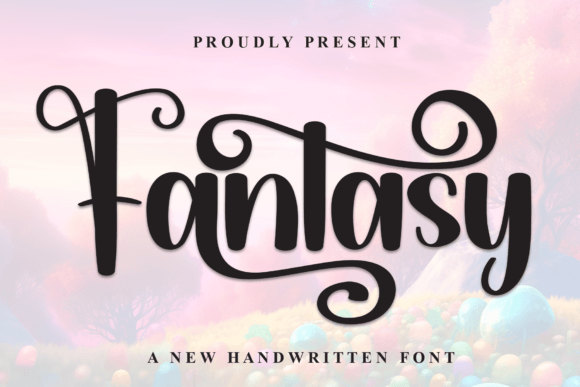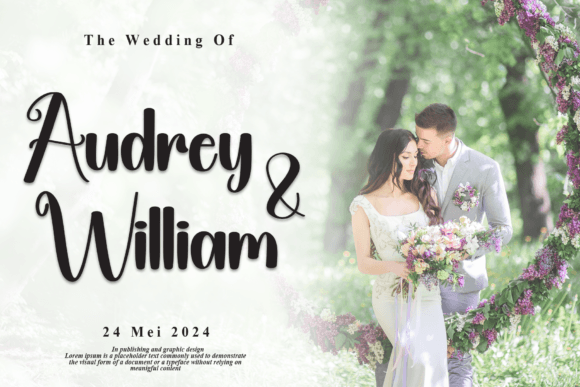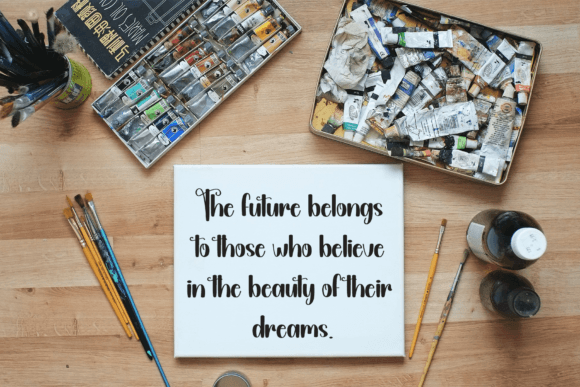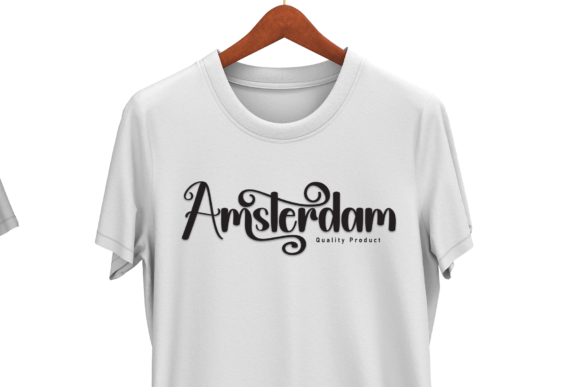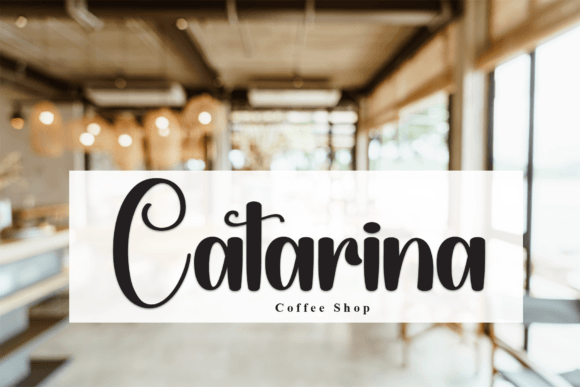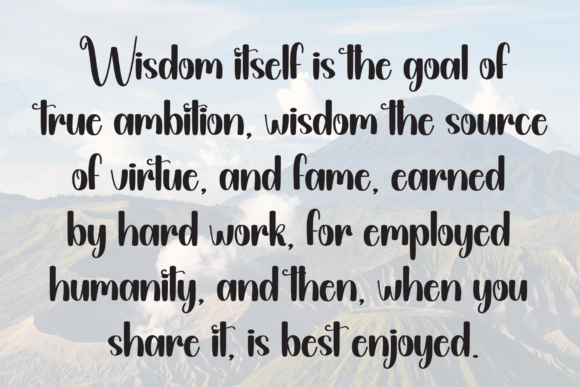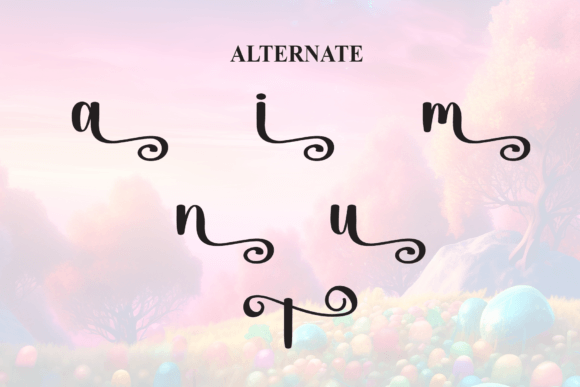
Unleash Your Creativity with Fantasy Font
Have you ever found yourself doodling in a notebook, lost in a world of imagination, and suddenly, an idea sparks? That’s the magic of creativity. And, for designers, that spark can be the starting point of an incredible project. For us, that spark often begins with the perfect font.
That’s where Fantasy Font comes in – a sweet and friendly handwritten font that’s perfect for bringing your imagination to life. Its natural and unique style makes it incredibly fitting to a large pool of designs, from whimsical children’s books to elegant wedding invitations. Whether you’re a seasoned designer or just starting out, Fantasy Font is a valuable addition to your toolkit.
Fantasy Font Key Features
- Font Family: Fantasy Font is a collection of 12 unique font styles, each with its own distinctive personality and flair.
- Unique Characteristics: Fantasy Font features intricate details, swashes, and flourishes, giving it a whimsical and imaginative feel that’s perfect for fantasy and science fiction projects.
Designer Review: Fantasy Font
When I first laid eyes on Fantasy Font, I couldn’t help but be charmed by its whimsical charm ✨. The font’s bold, playful style is perfect for designers looking to add a touch of magic to their projects. The varied line weights and stylistic sets make it incredibly versatile, allowing users to create unique and captivating visuals.
- ⚠️ The font’s boldness can sometimes feel overwhelming, making it challenging to read at smaller sizes.
- ⚠️ The stylistic sets can be a bit inconsistent, which may require some manual tweaking to achieve a cohesive look.
Overall, Fantasy Font is a fantastic addition to any designer’s toolkit ✨. While it may have some limitations, its unique style and versatility make it an excellent choice for projects that require a touch of fantasy and whimsy.
Fantasy Font is perfect for:
- Creativity and imagination-based projects
- Magical and whimsical designs
- Fantasy-themed artwork and illustrations